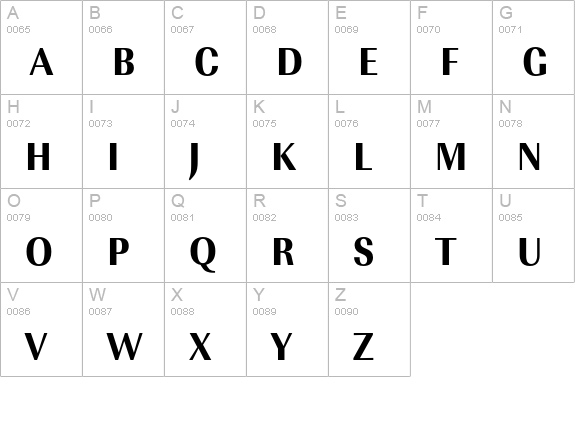
URWImperialTOTExtBolEN Font Details
The URWImperialTOTExtBolEN font is a bold and striking typeface designed to make a statement in any design project. With its clean lines and powerful presence, this font exudes confidence and style. Perfect for headlines, titles, and other display purposes, URWImperialTOTExtBolEN commands attention and leaves a lasting impression. What's even better is that this impressive font is completely free to download at FontsMarket.com. Whether you're a designer looking to add a touch of sophistication to your work or a writer wanting to make your words stand out, URWImperialTOTExtBolEN is the perfect choice. Download it today and elevate your design projects to new heights.